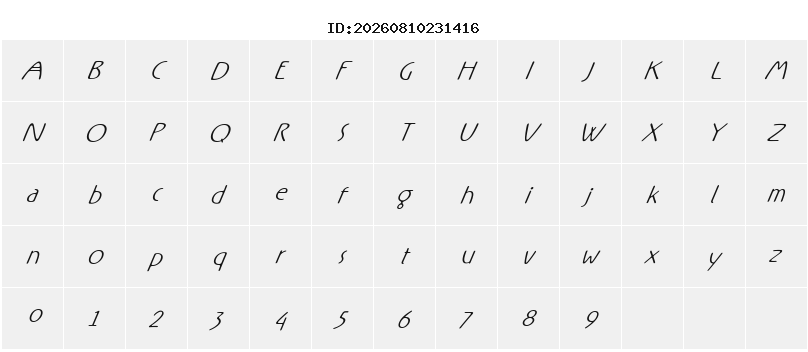
• Font Name: Rx-FiveOne
• Full Font Name: Rx-FiveOne
• PostScript Name: Rx-FiveOne
About Rx-FiveOne.ttf
Rx-FiveOne.ttf is a modern, elegant sans-serif font designed for ultimate readability and visual harmony. Perfect for branding, headlines, web design, and print materials.